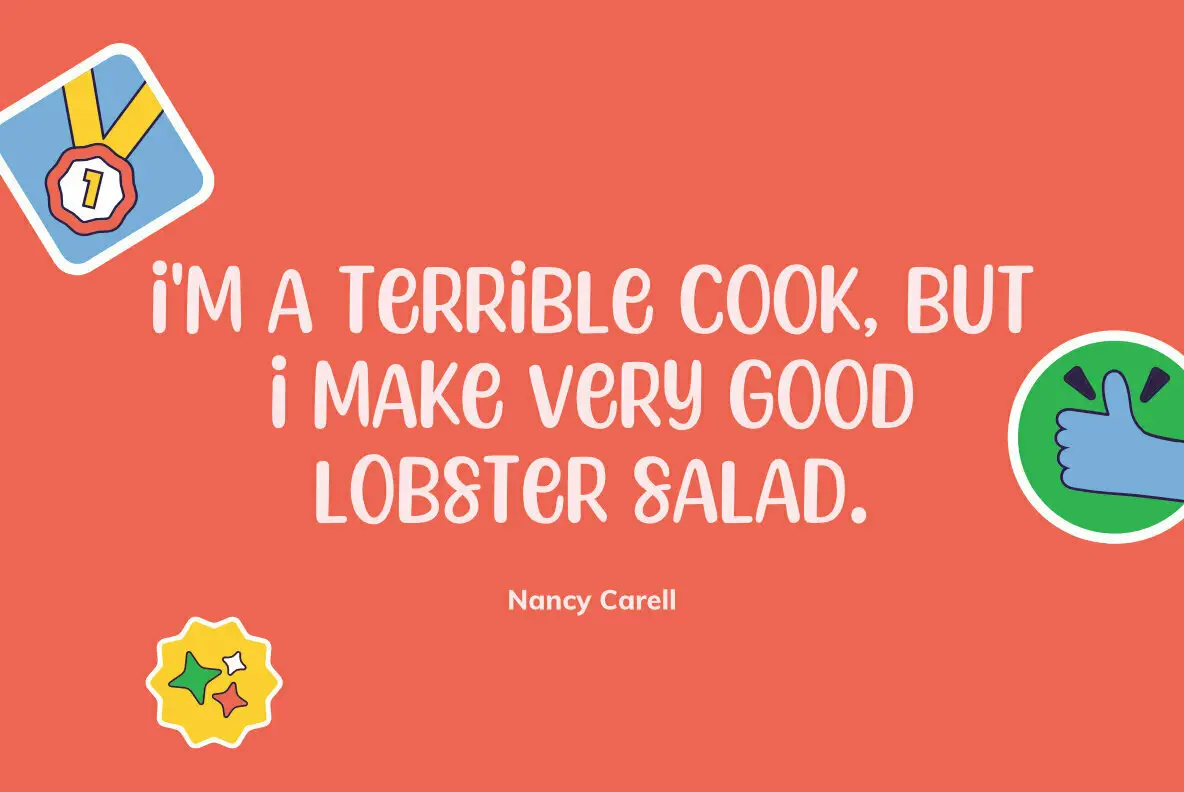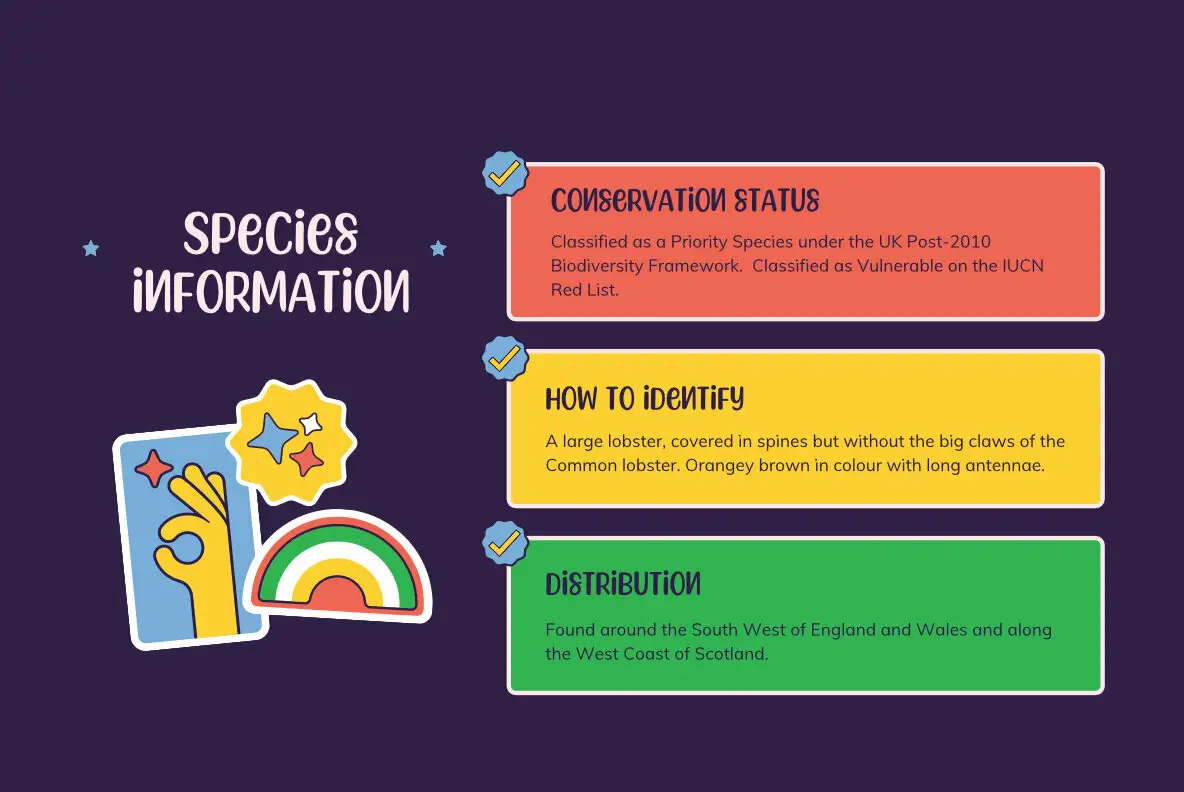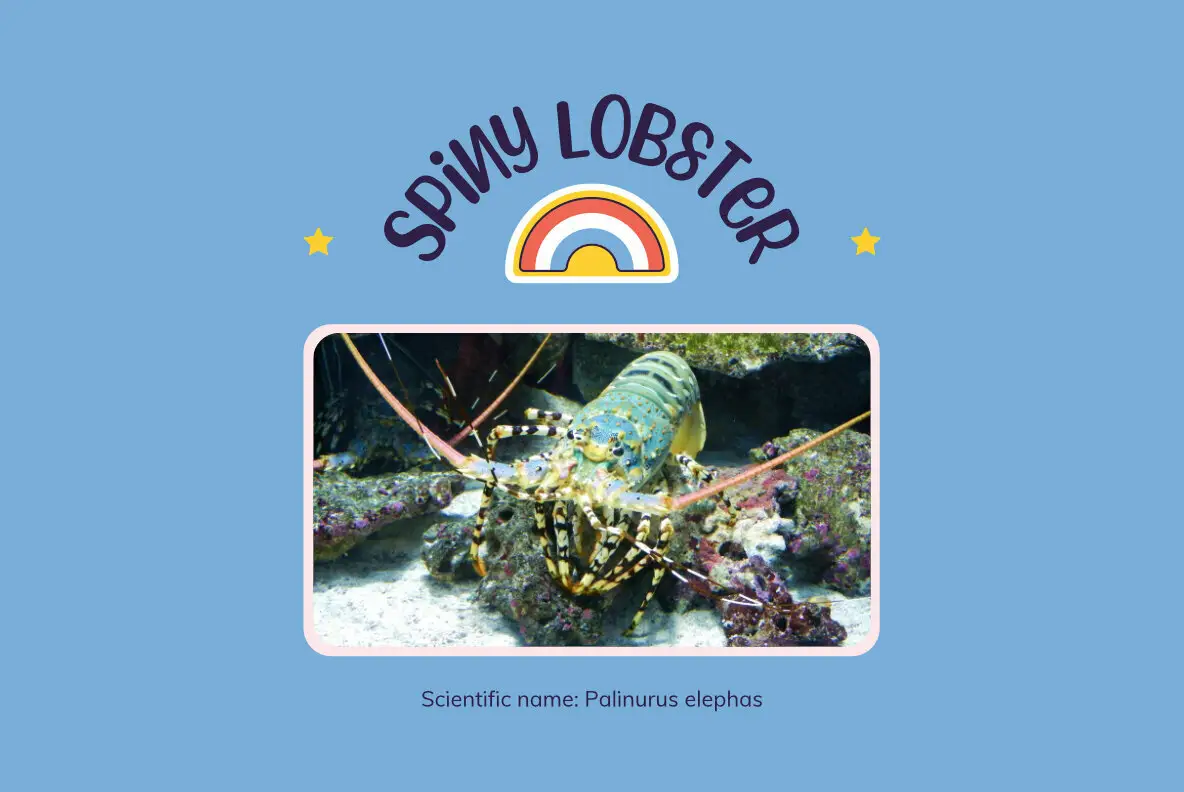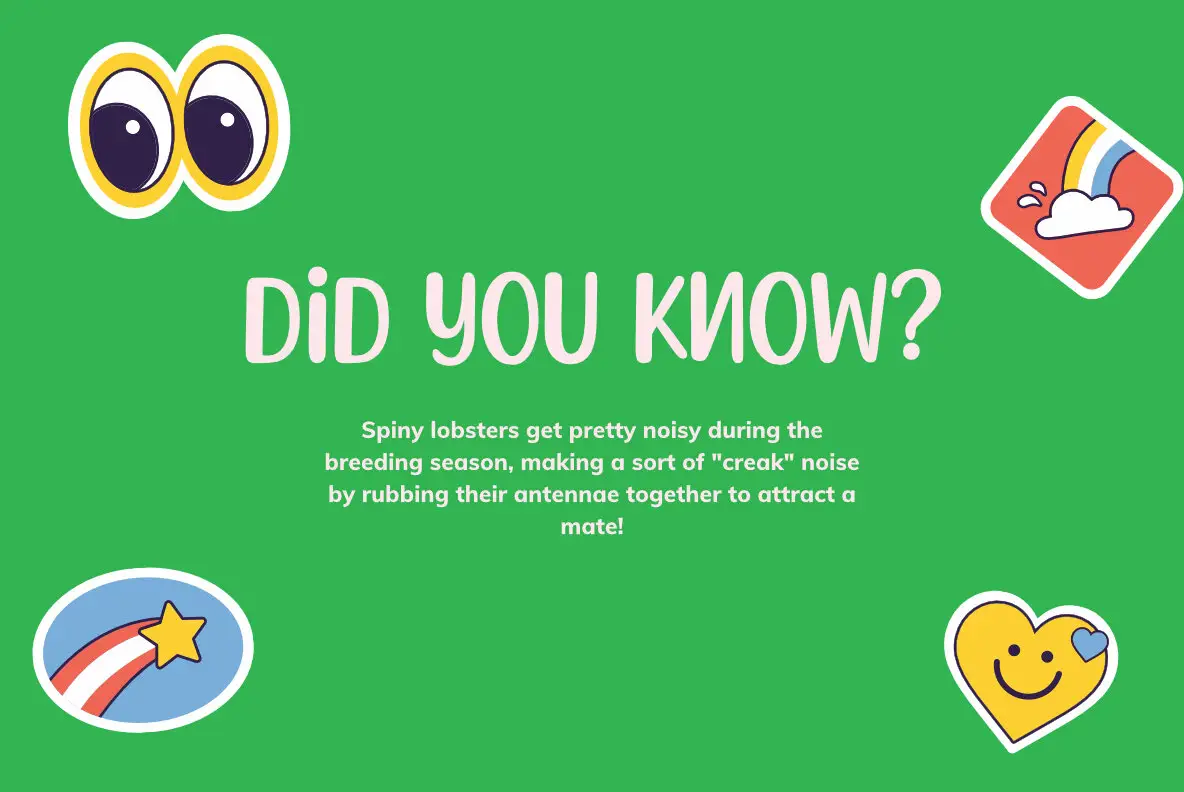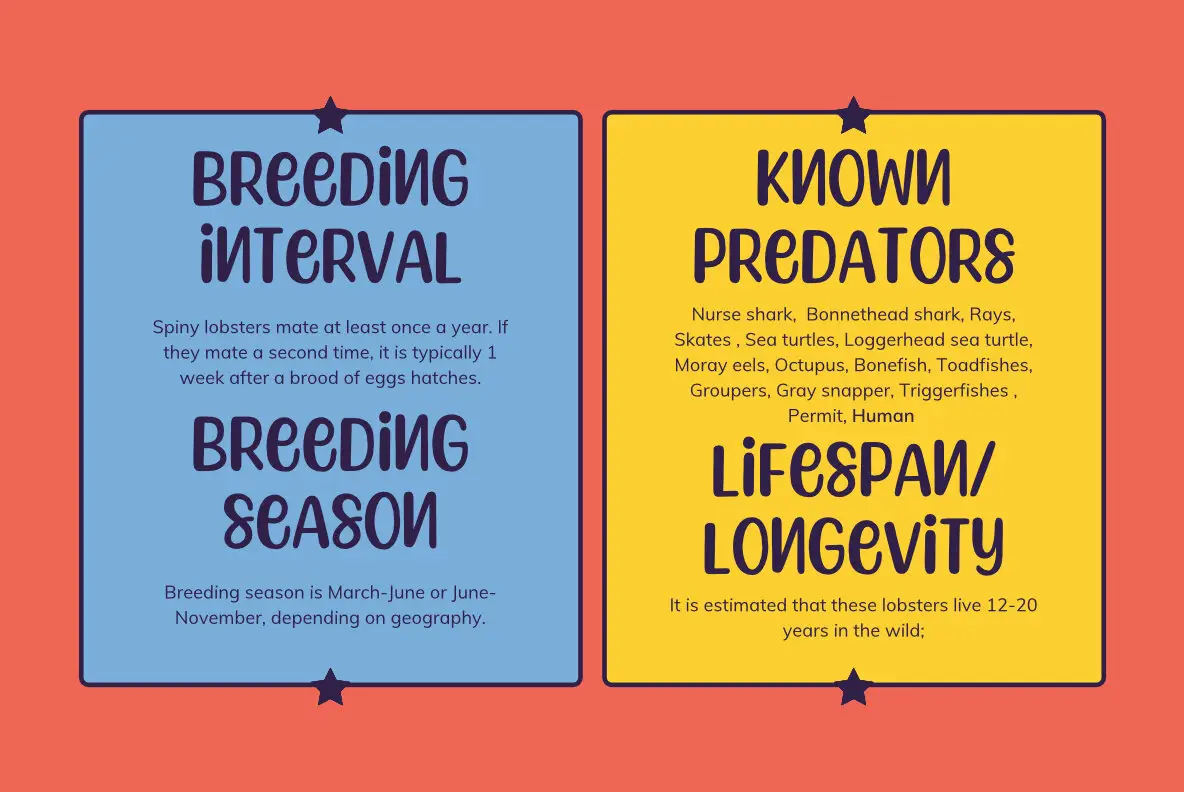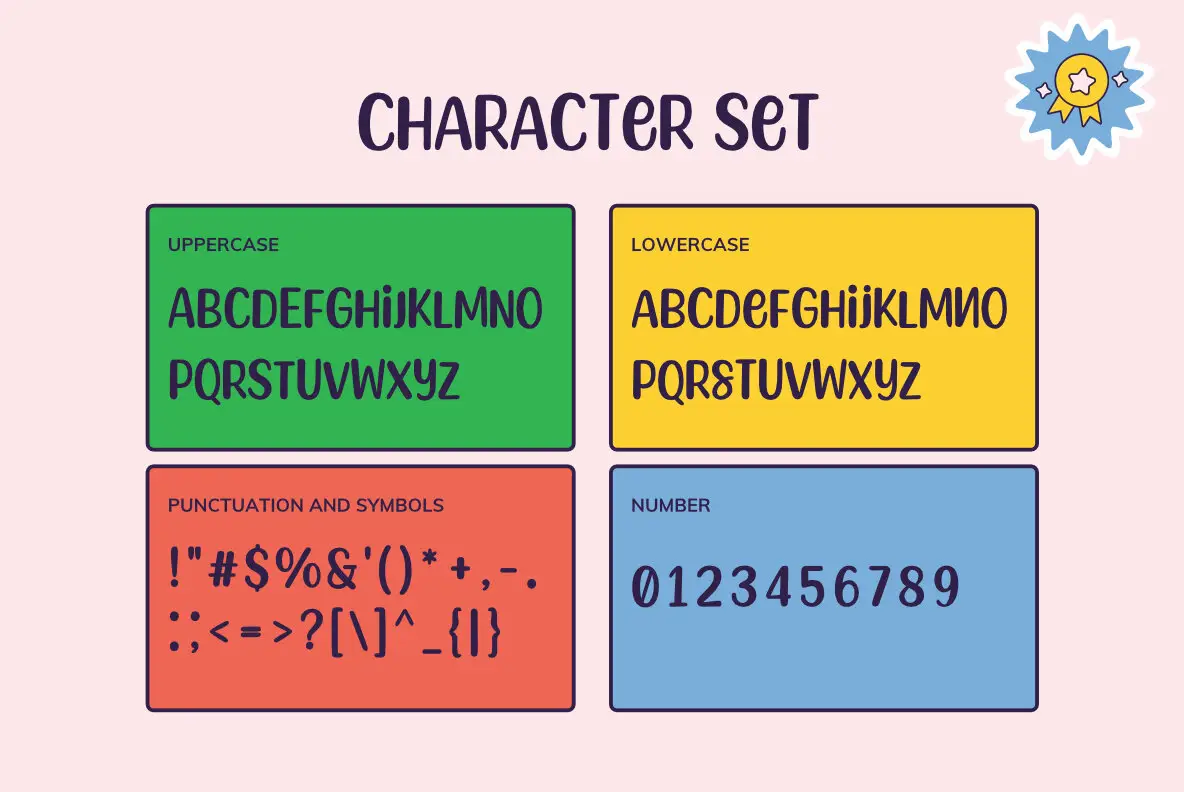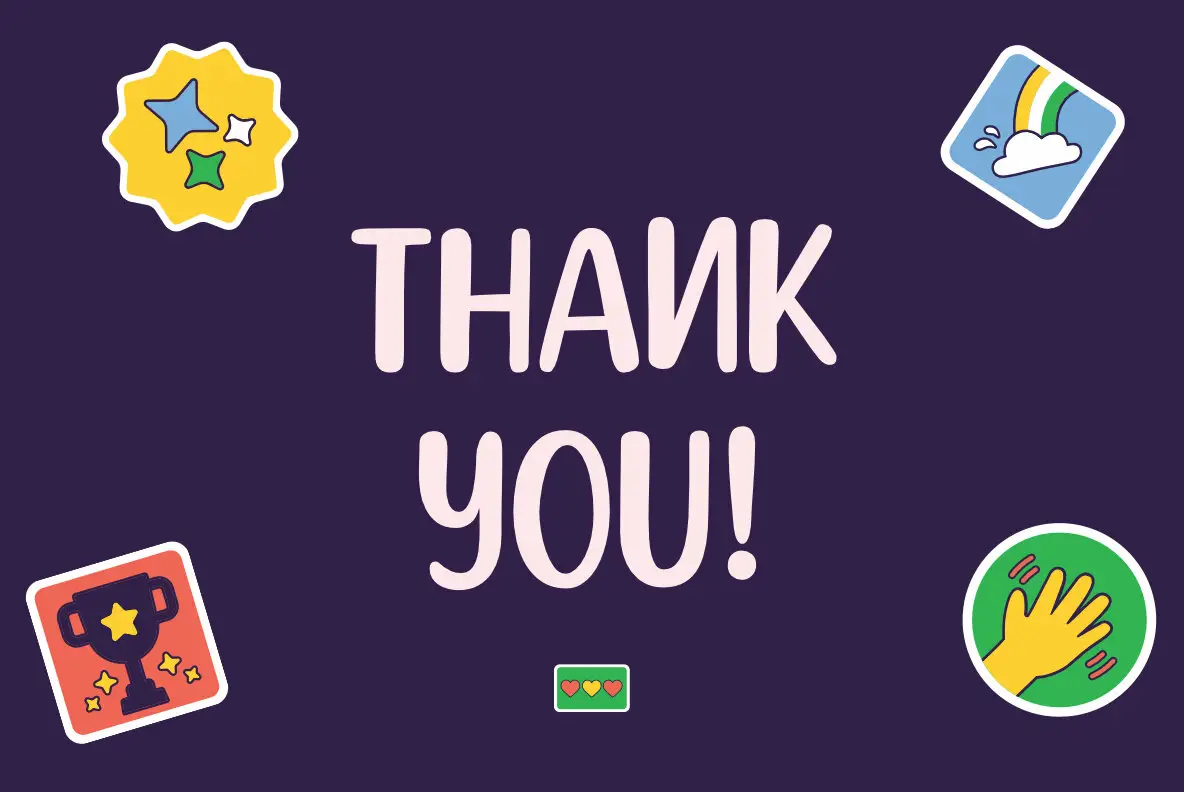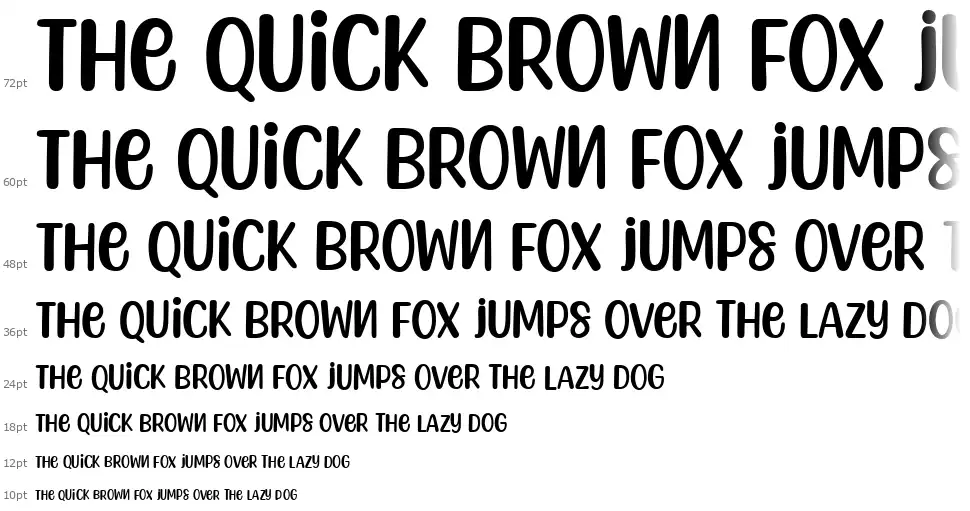
Spiny Lobster Font . The spiny lobster regular font contains 234 beautifully designed characters. Spiny lobster regular ali hamidi truetype demo. Spiny lobster is a free font for personal use created by ali hamidi. This font is for personal use only! You are not allowed to use this font for any commercial project, you can purchase a commercial. Spiny lobster font download is available free from fontget. Spiny lobster is a cool and friendly display font. ️ this font has been downloaded 10+ times. No matter the topic, this font will be an incredible asset to your fonts’ library, as it. With its friendly curves and unique character, it's sure to elevate any creation, no matter. Spiny lobster is a fun and versatile display font that will add a touch of personality to any design. Spiny lobster font family designed by ali hamidi has a total of 1 different styles. You can download the spiny lobster font to your computer or use. ️ customize your own preview on ffonts.net to. 16,410 downloads (15 yesterday) demo.
The spiny lobster regular font contains 234 beautifully designed characters. This font is for personal use only! 16,410 downloads (15 yesterday) demo. Spiny lobster is a fun and versatile display font that will add a touch of personality to any design. Download and install the spiny lobster regular font for free from ffonts.net. ️ this font has been downloaded 10+ times. You are not allowed to use this font for any commercial project, you can purchase a commercial. Spiny lobster font download is available free from fontget. Spiny lobster regular ali hamidi truetype demo. Spiny lobster is a cool and friendly display font.
Spiny Lobster Font Spiny lobster regular ali hamidi truetype demo. No matter the topic, this font will be an incredible asset to your fonts’ library, as it. Spiny lobster regular ali hamidi truetype demo. Spiny lobster is a cool and friendly display font. Download and install the spiny lobster regular font for free from ffonts.net. Spiny lobster is a fun and versatile display font that will add a touch of personality to any design. ️ customize your own preview on ffonts.net to. 16,410 downloads (15 yesterday) demo. Spiny lobster font download is available free from fontget. You can download the spiny lobster font to your computer or use. Spiny lobster is a free font for personal use created by ali hamidi. Spiny lobster font family designed by ali hamidi has a total of 1 different styles. ️ this font has been downloaded 10+ times. With its friendly curves and unique character, it's sure to elevate any creation, no matter. This font is for personal use only! You are not allowed to use this font for any commercial project, you can purchase a commercial.
Spiny Lobster free font Spiny Lobster Font Spiny lobster regular ali hamidi truetype demo. 16,410 downloads (15 yesterday) demo. With its friendly curves and unique character, it's sure to elevate any creation, no matter. You are not allowed to use this font for any commercial project, you can purchase a commercial. ️ customize your own preview on ffonts.net to. Download and install the spiny lobster regular font. Spiny Lobster Font.
Spiny Lobster Font YouWorkForThem Spiny Lobster Font No matter the topic, this font will be an incredible asset to your fonts’ library, as it. You are not allowed to use this font for any commercial project, you can purchase a commercial. You can download the spiny lobster font to your computer or use. With its friendly curves and unique character, it's sure to elevate any creation, no. Spiny Lobster Font.
Lobster Font Download FREE Spiny Lobster Font Download and install the spiny lobster regular font for free from ffonts.net. Spiny lobster regular ali hamidi truetype demo. 16,410 downloads (15 yesterday) demo. This font is for personal use only! Spiny lobster is a fun and versatile display font that will add a touch of personality to any design. Spiny lobster is a cool and friendly display font. Spiny. Spiny Lobster Font.
Lobster Font Generator & Download Spiny Lobster Font 16,410 downloads (15 yesterday) demo. With its friendly curves and unique character, it's sure to elevate any creation, no matter. Spiny lobster font download is available free from fontget. Spiny lobster regular ali hamidi truetype demo. Spiny lobster font family designed by ali hamidi has a total of 1 different styles. You are not allowed to use this font for. Spiny Lobster Font.
Spiny Lobster Font YouWorkForThem Spiny Lobster Font You can download the spiny lobster font to your computer or use. Download and install the spiny lobster regular font for free from ffonts.net. Spiny lobster font family designed by ali hamidi has a total of 1 different styles. With its friendly curves and unique character, it's sure to elevate any creation, no matter. ️ customize your own preview on. Spiny Lobster Font.